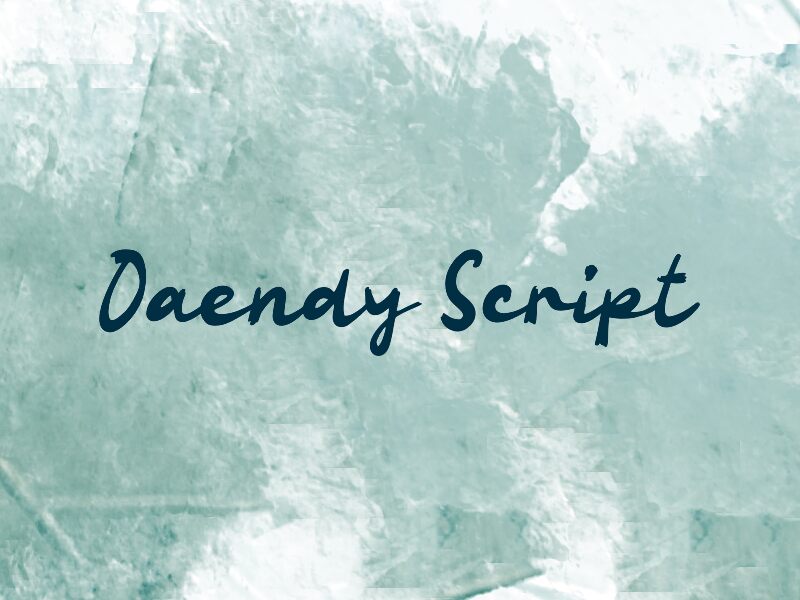
Oaendy Script font is a free font designed by wep. Its structure seems fluid and minimal, with a spontaneous human touch that breaks away from strict geometric or digital rules. This relaxed feel makes it suitable for projects with a modern or approachable concept in mind. Not every character has a brush stroke at the end of it, which is ideal for when excess in a style is not something you’re after. Choose personally where you want to add font styles for the most pleasing visual effect.
Oaendy Script is a beautifully crafted free font that exudes elegance and sophistication. Ideal for various design projects, this font features smooth lines and a flowing style that captures attention and adds a touch of creativity to any work.